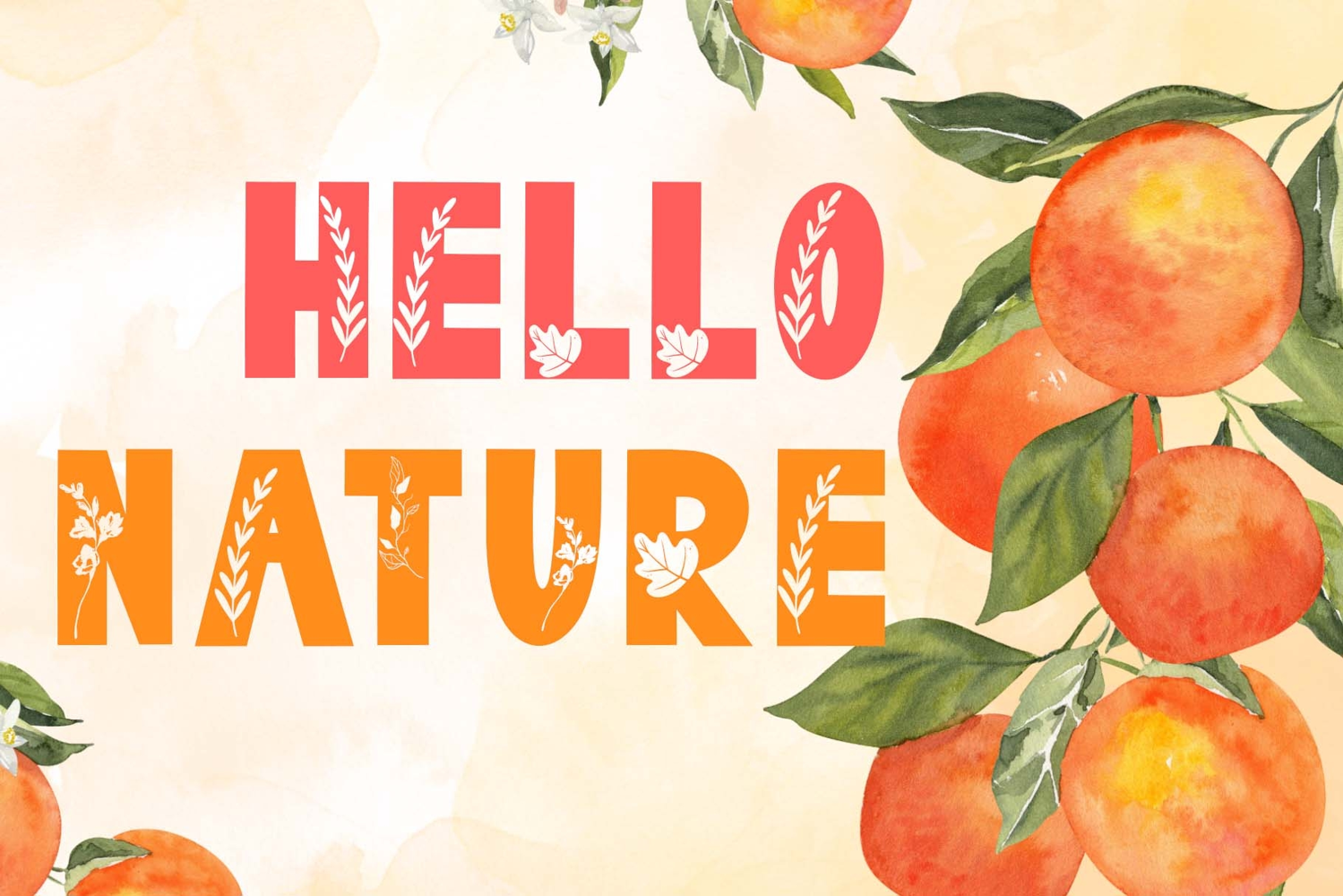
"Dainty Spring" is a cute and beautiful display font. This font is equipped with uppercase, lowercase, numerals, punctuations and multilingual support. Very suitable for use for spring, easter, summer, holiday, vacation, print, banner, branding, sticker, poster, procreate and others.